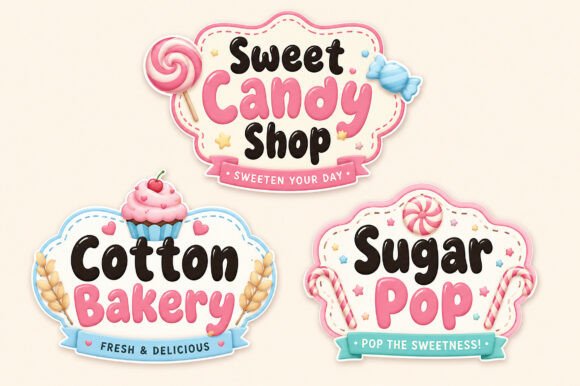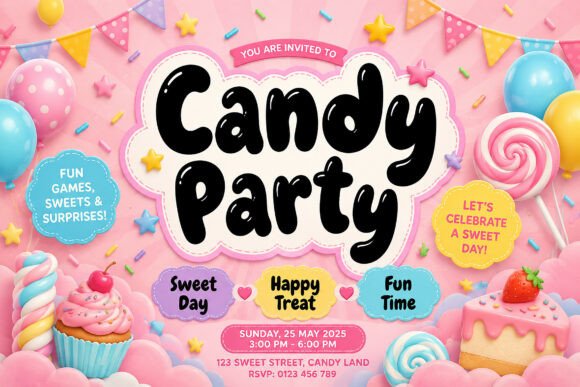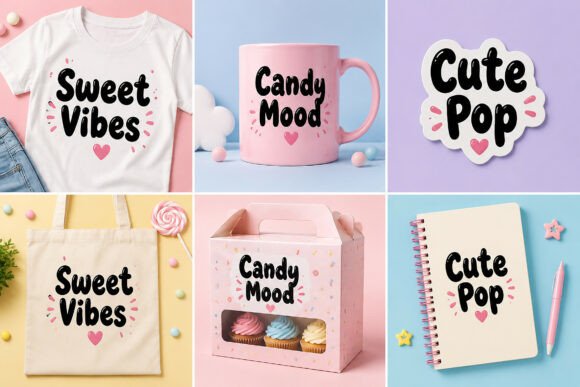
Cotton Candy Font: The Sweetest Addition to Your Design Projects
Are you looking for a font that can add a touch of whimsy and fun to your design projects? Look no further than the Cotton Candy font! This sweet, playful, and bubbly display font is inspired by the classic treats of candy shops, birthday parties, and fun kids’ designs. With its soft rounded shapes and cheerful personality, Cotton Candy is the perfect choice for creating eye-catching titles, logos, invitations, stickers, packaging, and creative branding projects.
The Inspiration Behind Cotton Candy Font
Cotton Candy font is inspired by the colorful and lively world of candy shops and children’s parties. The font’s creator aimed to capture the playful and carefree spirit of these environments, where imagination and creativity know no bounds. The result is a font that is both sweet and sophisticated, with a unique personality that is sure to delight designers and their audiences alike.
Key Features of Cotton Candy Font
- Soft Rounded Shapes: The Cotton Candy font features soft, rounded shapes that give it a friendly and approachable feel. These shapes are perfect for creating designs that are both playful and elegant.
- Cheerful Personality: The font’s cheerful personality makes it perfect for designs that need to evoke a sense of fun and excitement. Whether you’re creating a logo, invitation, or social media graphic, Cotton Candy is sure to bring a smile to your audience’s face.
- High Versatility: Cotton Candy is a highly versatile font that can be used for a wide range of design projects. From children’s brands and bakeries to party decorations and Cricut projects, this font is perfect for any design that needs a touch of whimsy and fun.
Use Cases for Cotton Candy Font
So, what can you create with the Cotton Candy font? The possibilities are endless! Here are a few ideas to get you started:
- Children’s Brands: Cotton Candy is perfect for creating logos, packaging, and marketing materials for children’s brands. Its playful and cheerful personality is sure to delight kids and parents alike.
- Bakeries and Candy Stores: If you’re a bakery or candy store owner, Cotton Candy is the perfect font for your branding and marketing materials. Its sweet and playful personality is sure to make your customers’ mouths water.
- Party Decorations: Create eye-catching party decorations, invitations, and favors with the Cotton Candy font. Its cheerful personality is sure to add a touch of fun and excitement to any party.
- Cricut Projects: Cotton Candy is a great font for Cricut projects, such as vinyl decals, iron-on designs, and paper crafts. Its soft rounded shapes and playful personality make it perfect for creating fun and colorful designs.
- Social Media Graphics: Add a touch of whimsy and fun to your social media graphics with the Cotton Candy font. Its cheerful personality is sure to make your followers smile.
Tips for Using Cotton Candy Font
Here are a few tips for using the Cotton Candy font in your design projects:
- Pair it with Bold Colors: Cotton Candy font looks best when paired with bold, bright colors. Try pairing it with pink, blue, yellow, or orange to create a fun and playful design.
- Use it for Headlines: Cotton Candy font is perfect for headlines and titles. Use it to create eye-catching headings that grab your audience’s attention.
- Experiment with Different Sizes: Don’t be afraid to experiment with different font sizes. Cotton Candy font looks great in large sizes, but it can also be used for smaller text elements.
| Font Name | Cotton Candy Font |
| Author | Bundle |
In conclusion, the Cotton Candy font is a sweet, playful, and bubbly display font that is perfect for adding a touch of whimsy and fun to your design projects. With its soft rounded shapes and cheerful personality, it’s perfect for creating eye-catching titles, logos, invitations, stickers, packaging, and creative branding projects. Whether you’re designing for a children’s brand, bakery, candy store, party decoration, Cricut project, or social media graphic, Cotton Candy is sure to delight your audience and add a friendly touch to every design.